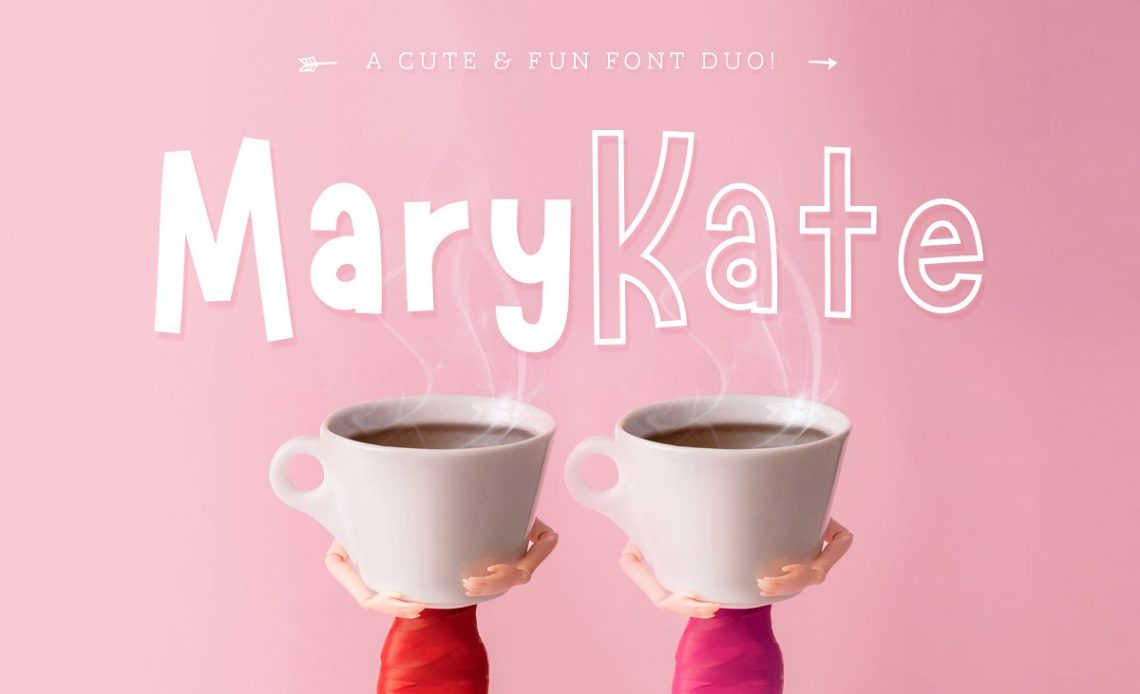
Introducing the Marykate Font Duo, a delightful and captivating addition to your font collection! Created by TypeFairy, this sans serif font family offers a playful yet versatile style that is sure to elevate your design projects to new heights.
The Marykate Font Duo includes both solid and outline font files, giving you the freedom to experiment and create stunning typography. Whether you're working on quotes, home decor, wedding invites, blog headers, branding, t-shirts, posters, or any other design endeavor, Marykate is the perfect choice.
But that's not all – we've got an exciting update for you! The Marykate Font Duo now supports multiple languages, including Danish, French, Italian, Norwegian, Portuguese, Spanish, Swedish, Swahili, and more. So, no matter where you're from or what language you prefer, Marykate has got you covered.